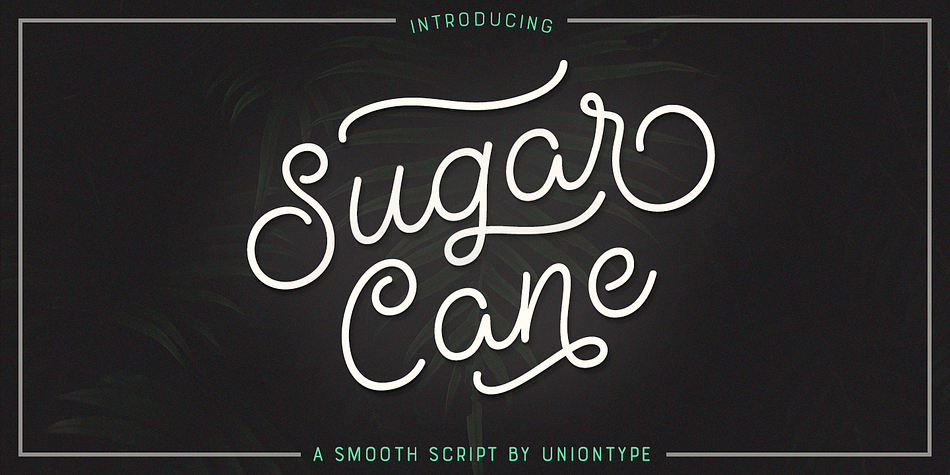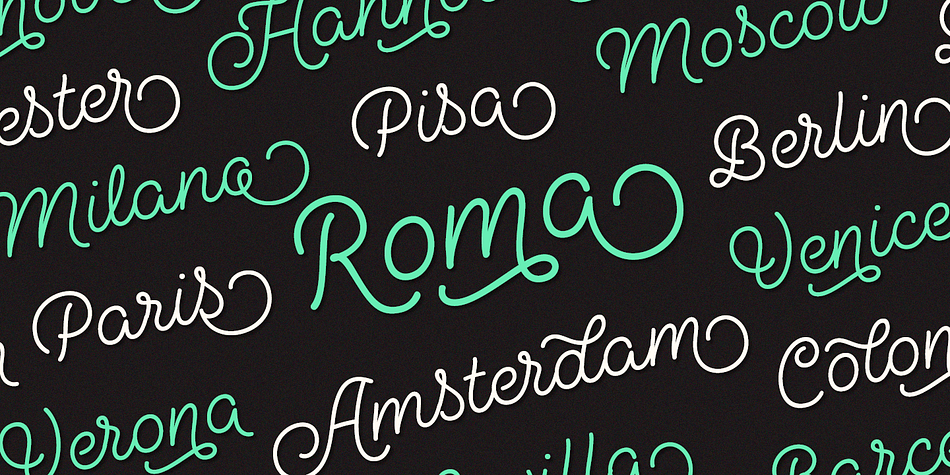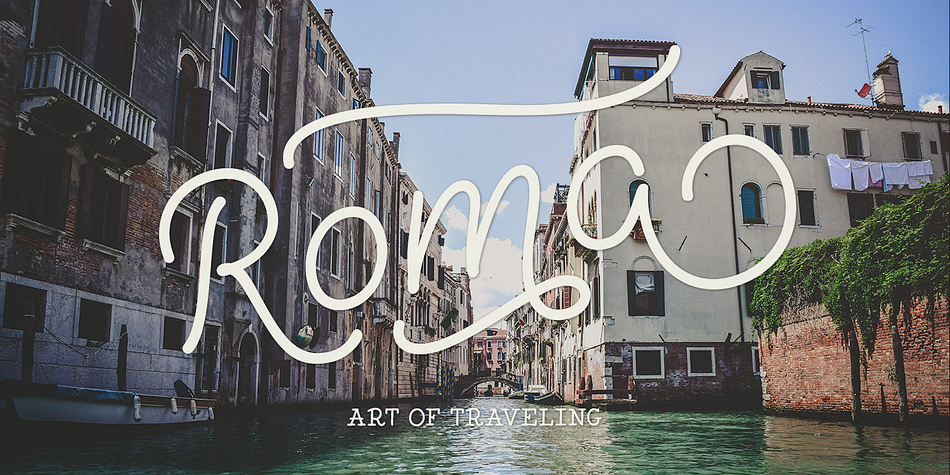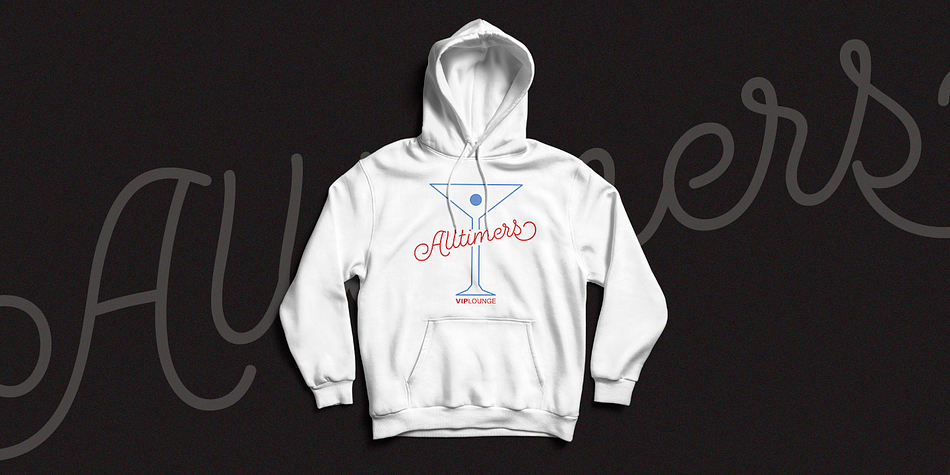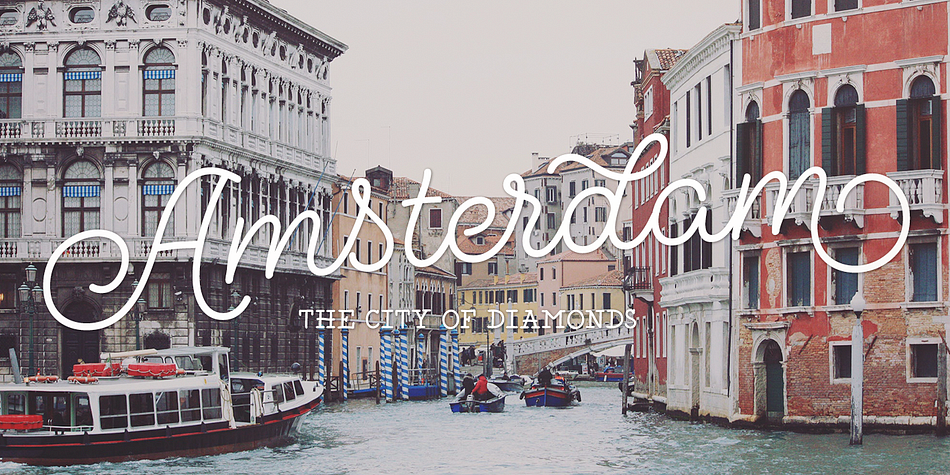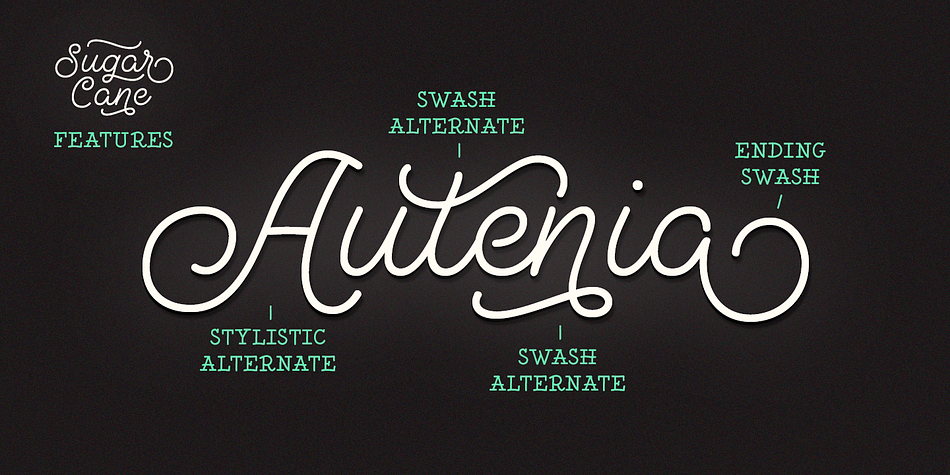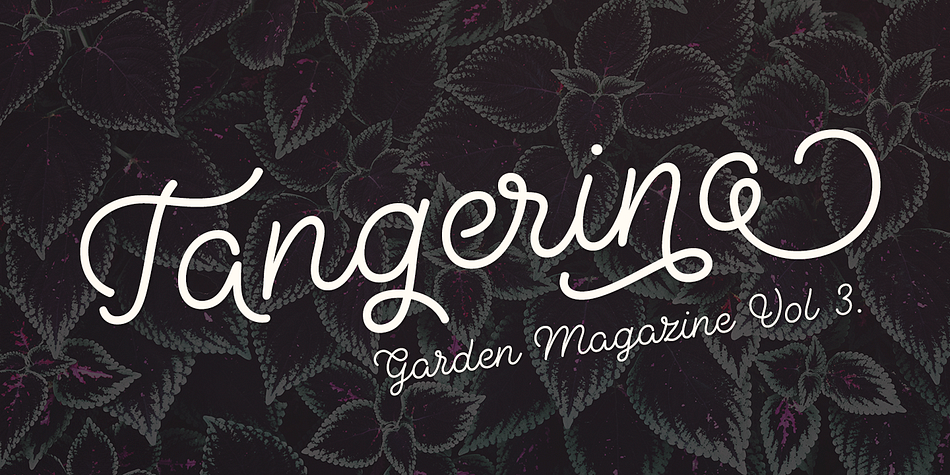
Designed by Roman Avdiushkin, Sugar Cane is a script font published by Uniontype.
Sugar Cane by Uniontype is a fresh and light multilingual script inspired by vintage monoline fonts. It provides advanced typographical support with contextual alternates, ligatures and swashes. That way, you’ll have automatic access to the dozens of extra glyphs in each of the fonts. This font is good for menu, signs, packaging, posters, letterings and logos.